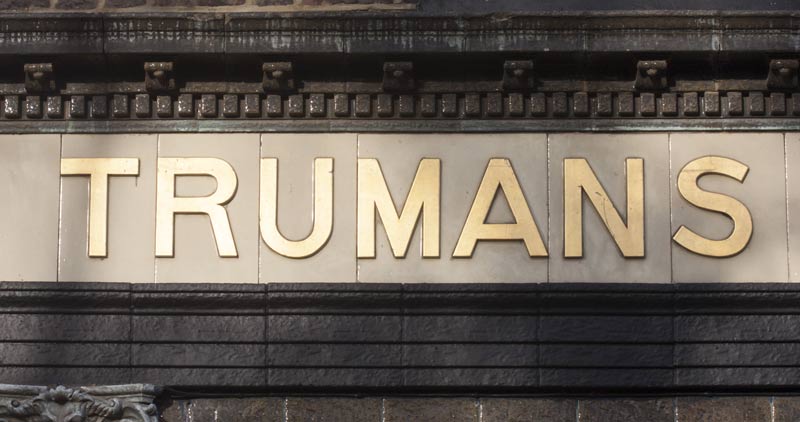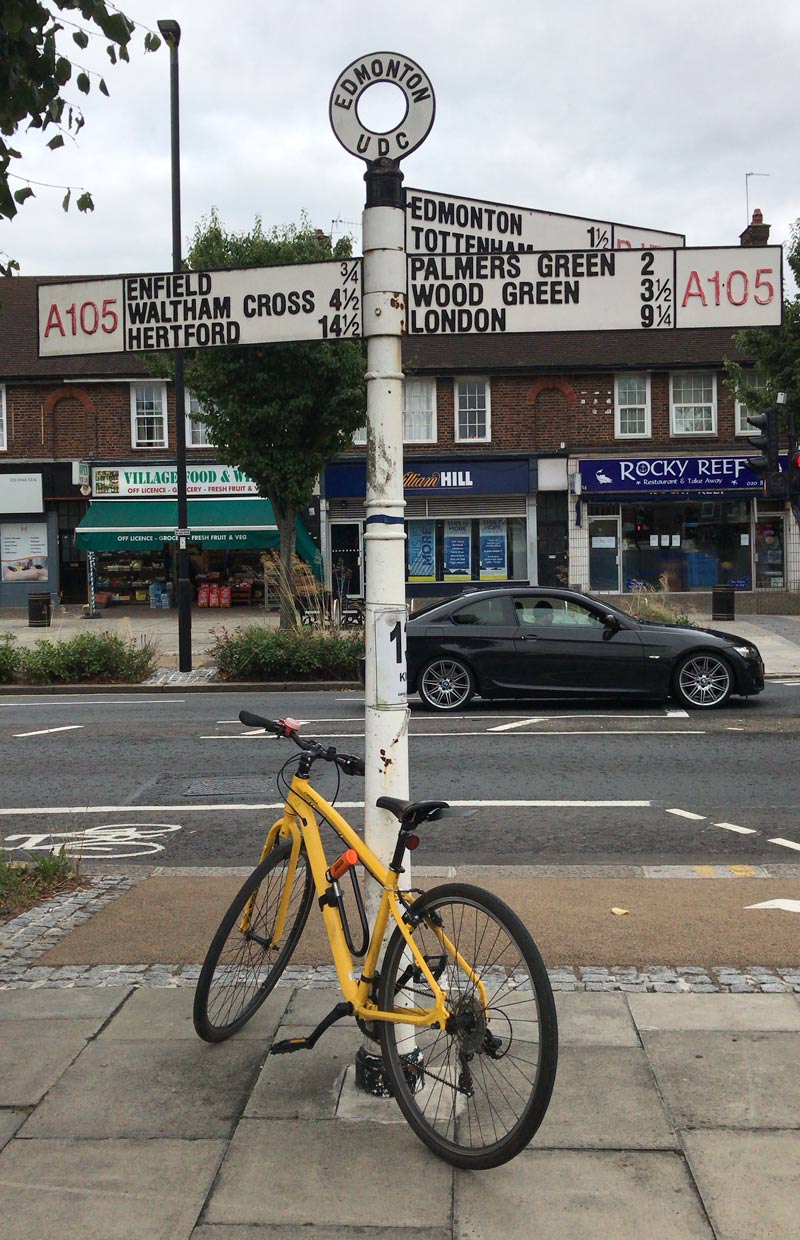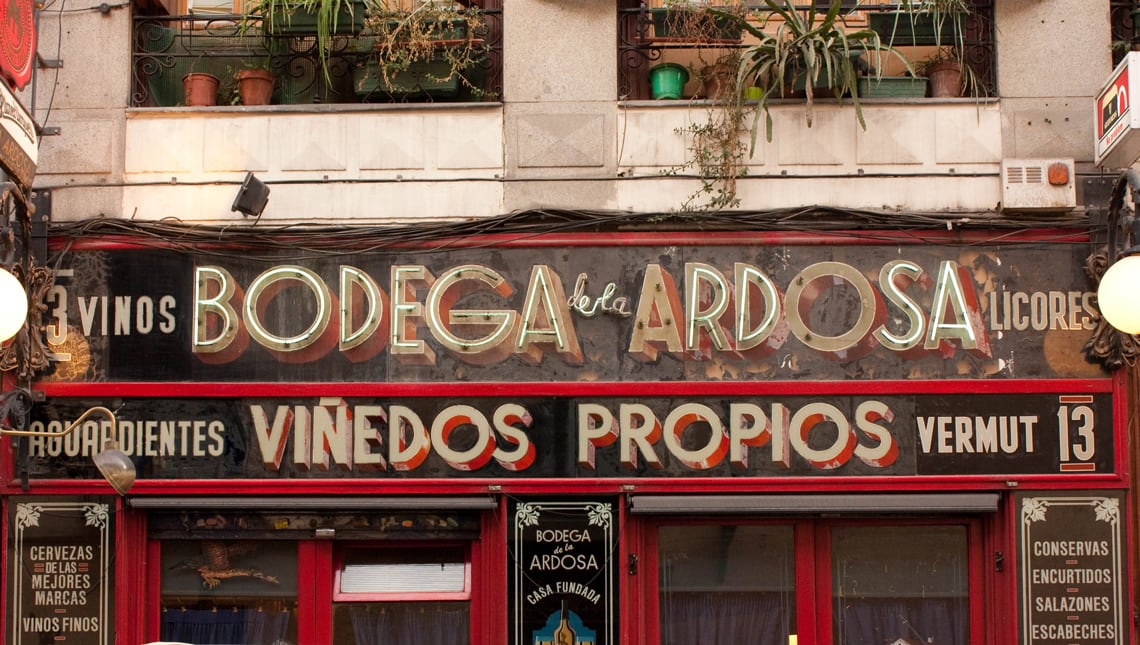
Meet Elena
We continue our interview series with the TypeTogether team. Grab the local drink horchata with fartons, or, if you are closer to the aperitif time of the day, pour yourself a nice glass of vermú — it’s time to meet Elena, our communications manager.
Elena veguillas
Elena has been with TypeTogether since May 2013. She coordinates our communication and branding and deals with all things graphics. She designed a single dot and a single comma once, but she doesn’t think of herself as a type designer. She is a world traveller and has moved almost 30 times. Elena is currently working on her PhD in architectural lettering, and in her free time co-runs a publishing house in Spain focused on typography. One of her most valuable objects is her bike that she uses to travel around London. If you meet her she might take pictures of public lettering while you walk and talk, but don’t take it personally.
1 · Where is your office located?
In Finsbury Park, London.
2 · In what countries or cities have you lived?
In Getxo, my hometown, which is in the Basque Country, and in Madrid, Valencia (all those are in Spain), Setúbal (Portugal), Reading, and London (both in the UK).
·  What kind of music do you listen to, if you do, while working?
The snoring of the cat, the neighbours shouting, the lawnmower, the wind and the rain in winter,  basically the everyday noises of my flat. If I play some music it would be something quiet, like Iron & Wine or Wilco.
·  Can you name three fonts you love (designed by others)?
I would rather choose three public lettering uses! It is still hard, though, but the balustrade lettering at Castle Ashby (UK) is one to be seen, the Gazeta building in São Paulo is breathtaking, and the tabernas and bodegas in Madrid that still show the patina of time in terms of their lettering look; in particular Bodega La Ardosa in Malasaña — a favourite in every sense.
·  What is your hobby when not designing fonts?
One of my favourite things, as is probably evident now, is walking around cities looking for and looking at public lettering. There is joy in finding things you haven’t noticed before. They are new to you, but they might have been there for some decades, or even centuries. And there’s  also the joy of seeing favourite lettering examples still in situ. Sometimes a kind of perfection is even reached: when there is a combination of a (lettering) walk in a nice city with good friends and lovely food and drinks.
·  You have one opportunity to do something different in your life. What do you choose?
If we are talking about work, probably I’d be working with animals in some capacity or, more likely, with food. I love the idea of escaping to the seaside and opening a small place that offers simple food.
·  What is your favourite word?
Panoli, it is a Spanish word that comes from Valencia: ‘pa en oli’, meaning bread with olive oil. Nowadays it is used for someone who is a bit simple. But is there anything simpler, yet more wonderful, than a good bread and extra virgin olive oil? It is also used for someone who is foolish, but this can be in an affectionate way: eres una panoli, my mother tells me that when I do something silly like spilling milk. In English I would choose perambulation, I love both the idea of walking around without a defined destination, but also the sound of the word.
· What is the most amazing script you have worked with? why?
It is really hard choosing one over the others. Being able to work with different scripts, but also researching them, trying to understand how they work, how to use them, is something I love about my job.  I’ve loved everything about working with Devanagari, but Hebrew and Thai were pure challenges. However, instead of choosing a script that I know I would rather choose a script that I don’t. I am looking forward to use Bengali.
Piticli was Elena’s flatmate in Madrid until Elena moved to Reading in 2009, and Piticli moved with her aunt and ancle and their pack of dogs.
Elena’s little desk office at Finsbury Park.
A small village in central Spain, in La Mancha.
Elena‘s ongoing PhD research takes her to visit many public houses — ahem, pubs — in London, but just to look at the architectural lettering!
Lettering + bike, perfect!